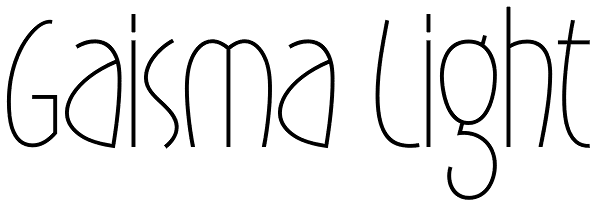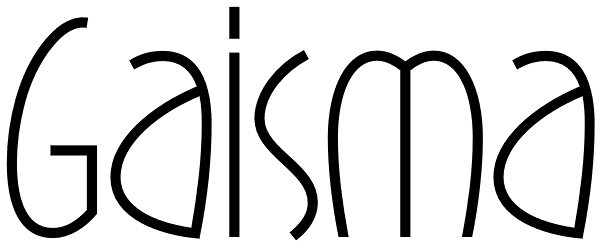
Gaisma
Art Nouveau typeface "Gaisma" ("Light" in Latvian) contains characters for all the European languages, Cyrillic and modern Greek as well as a huge set of contextual and stylistic alternates and historical characters to replicate the texts of the...